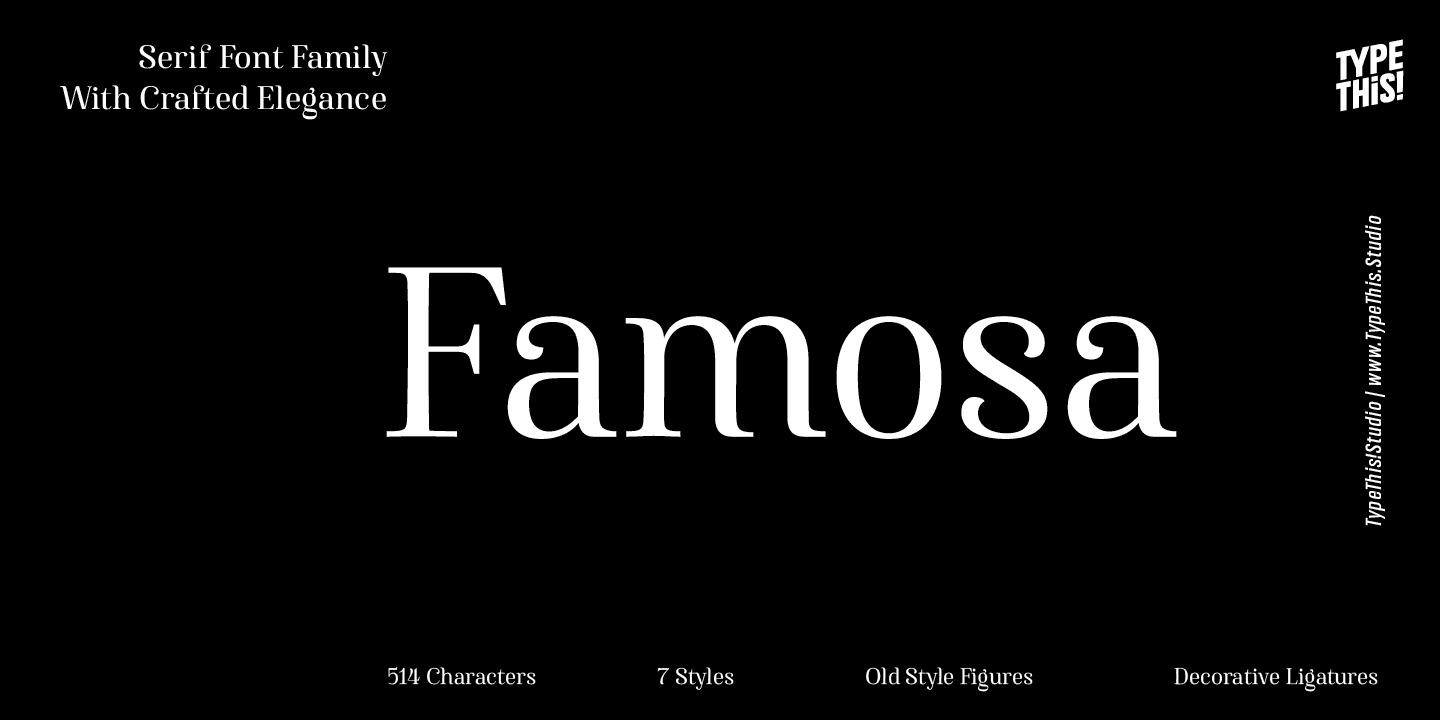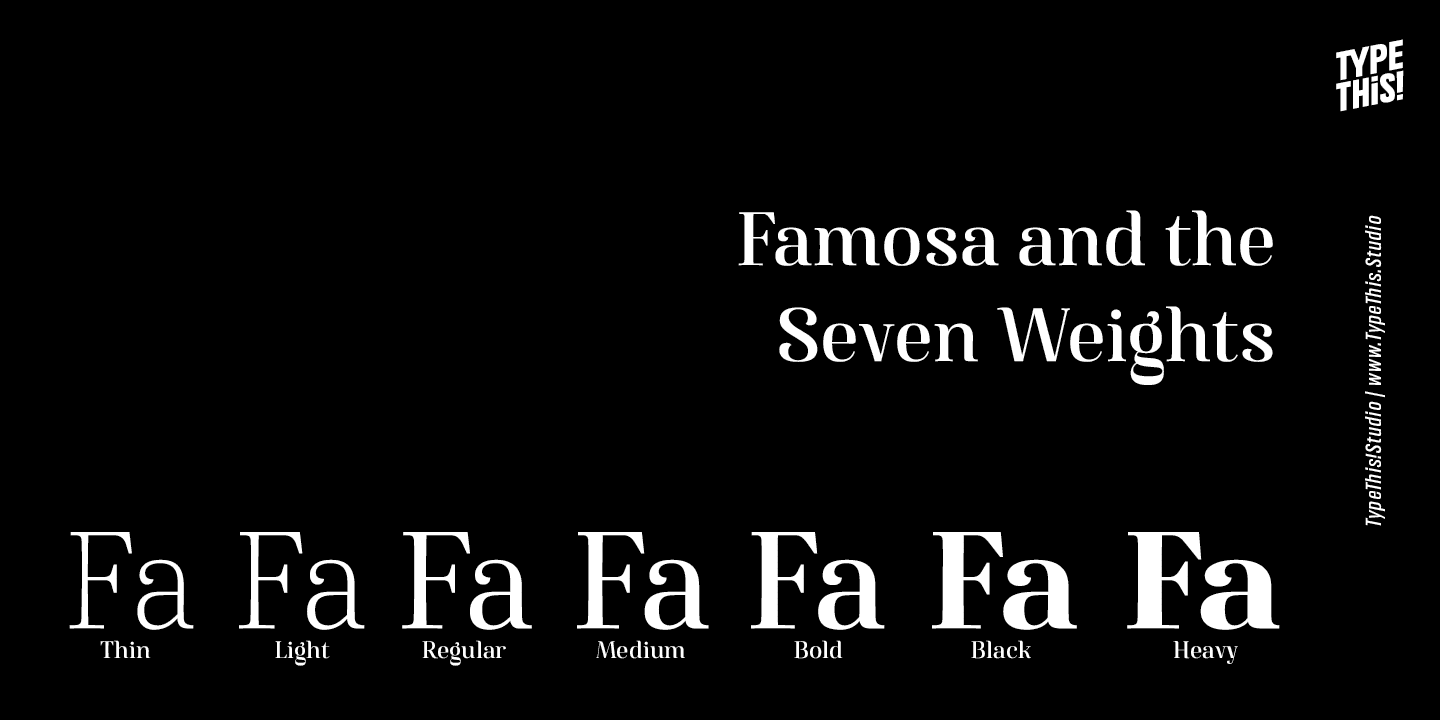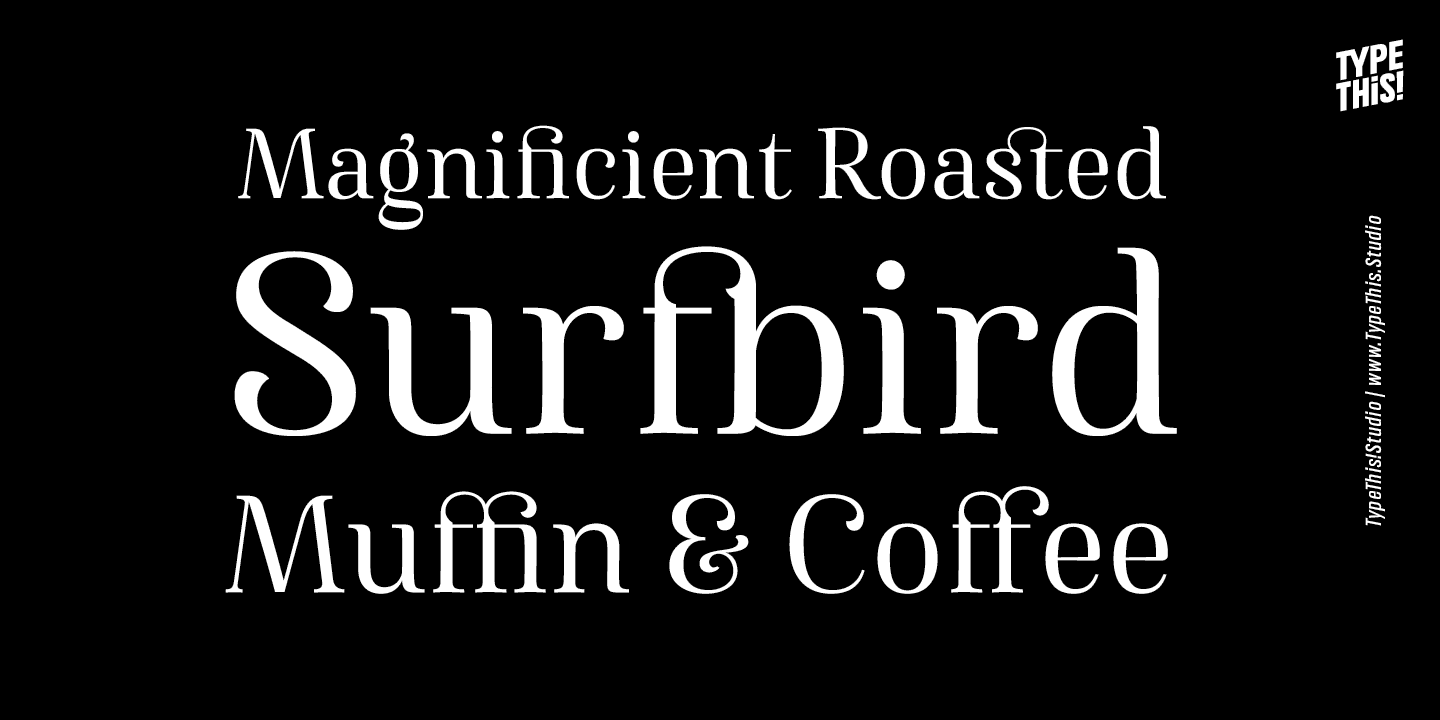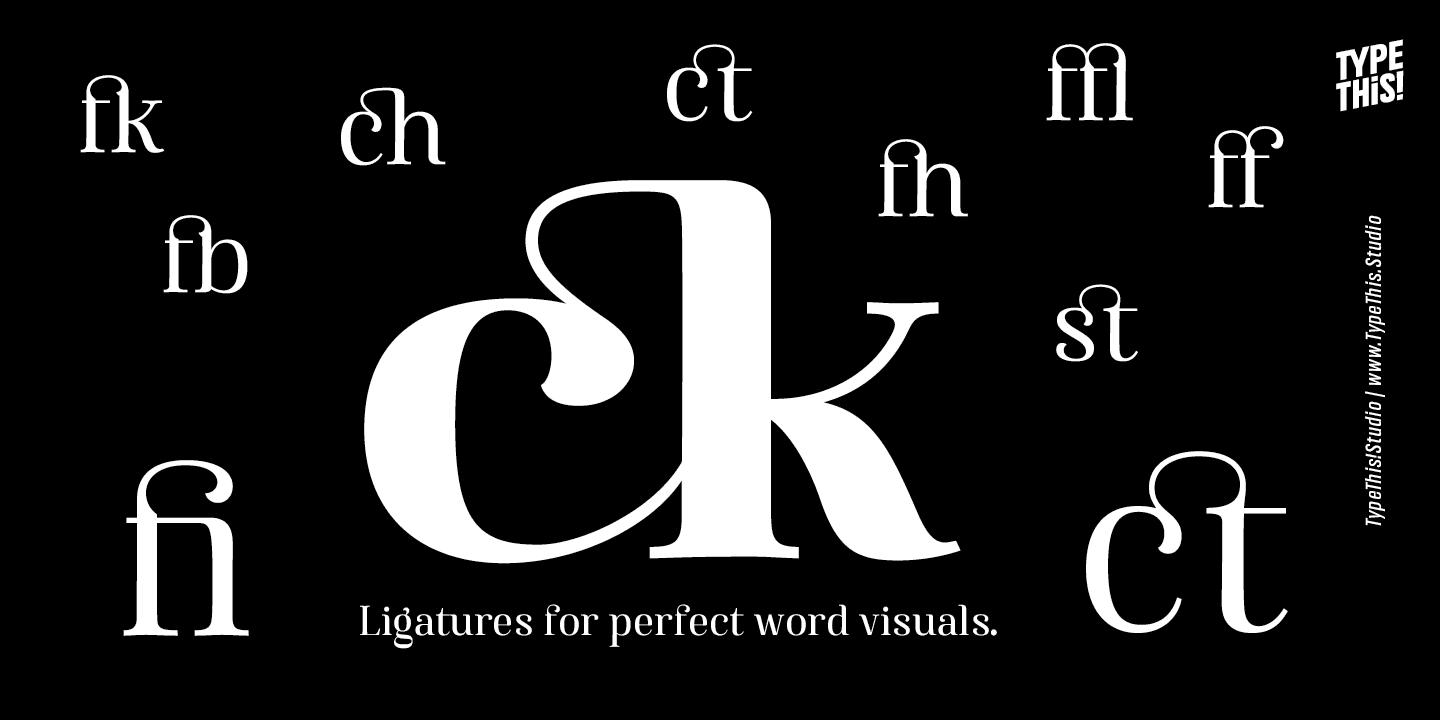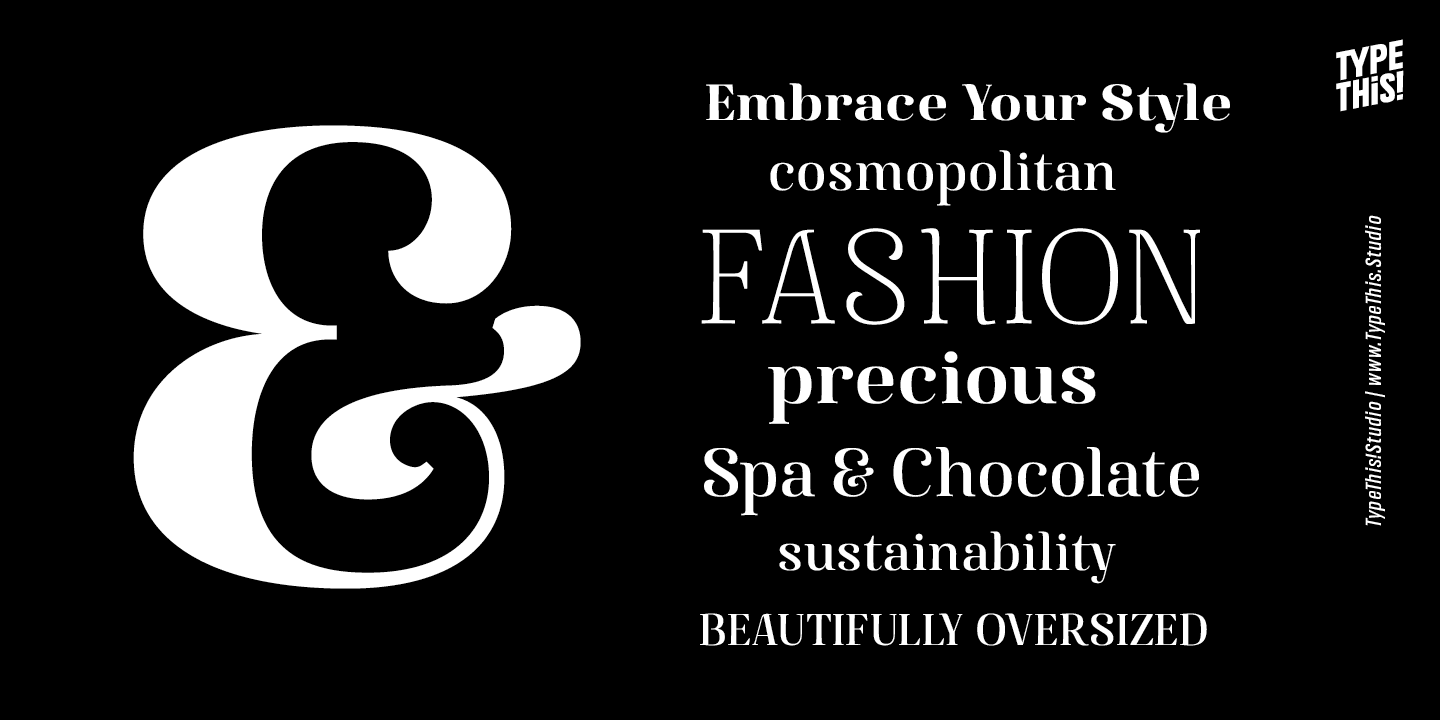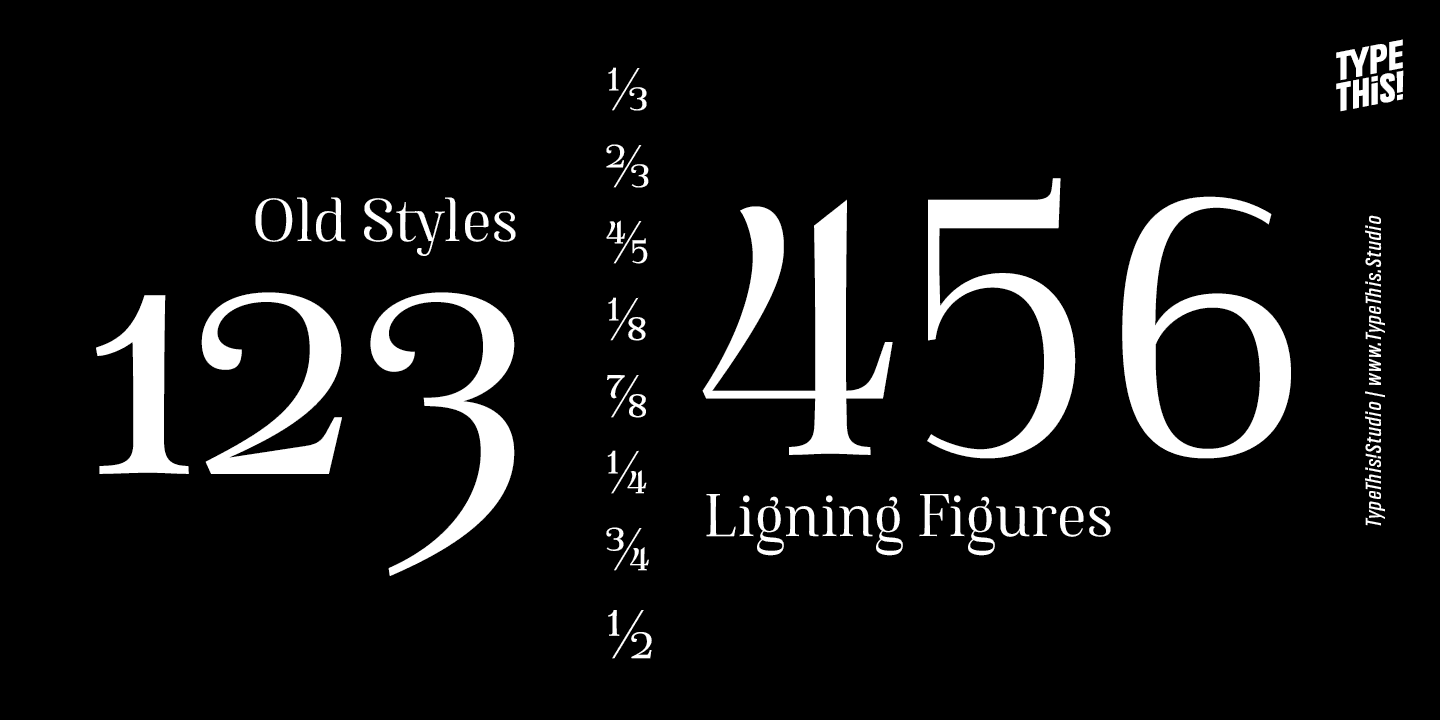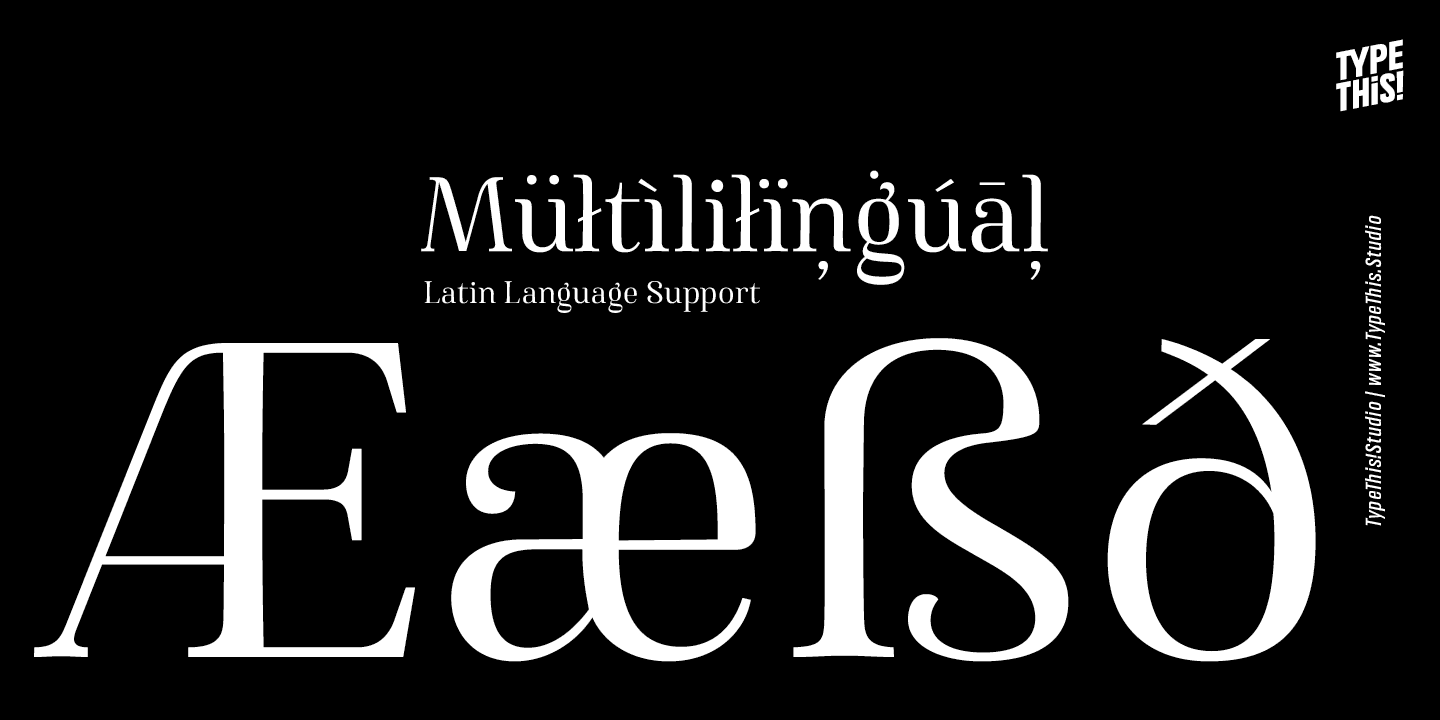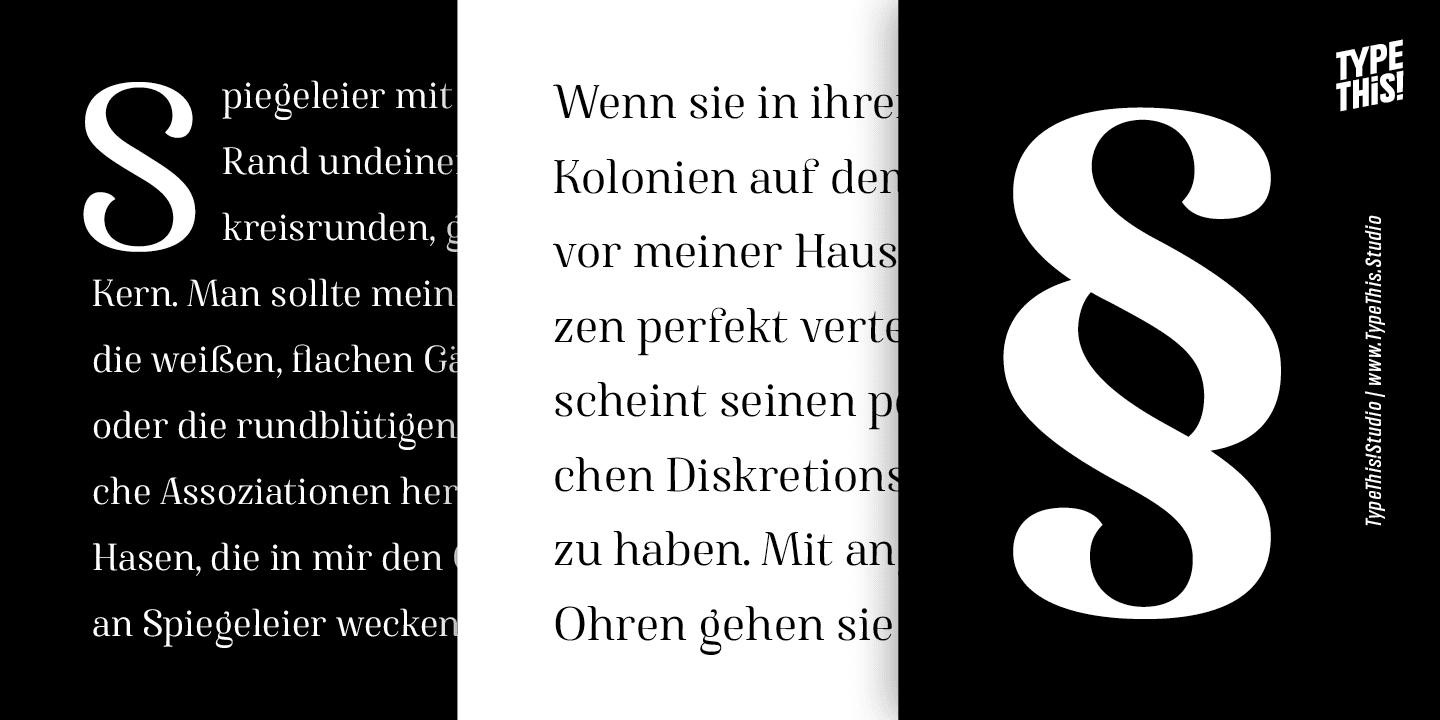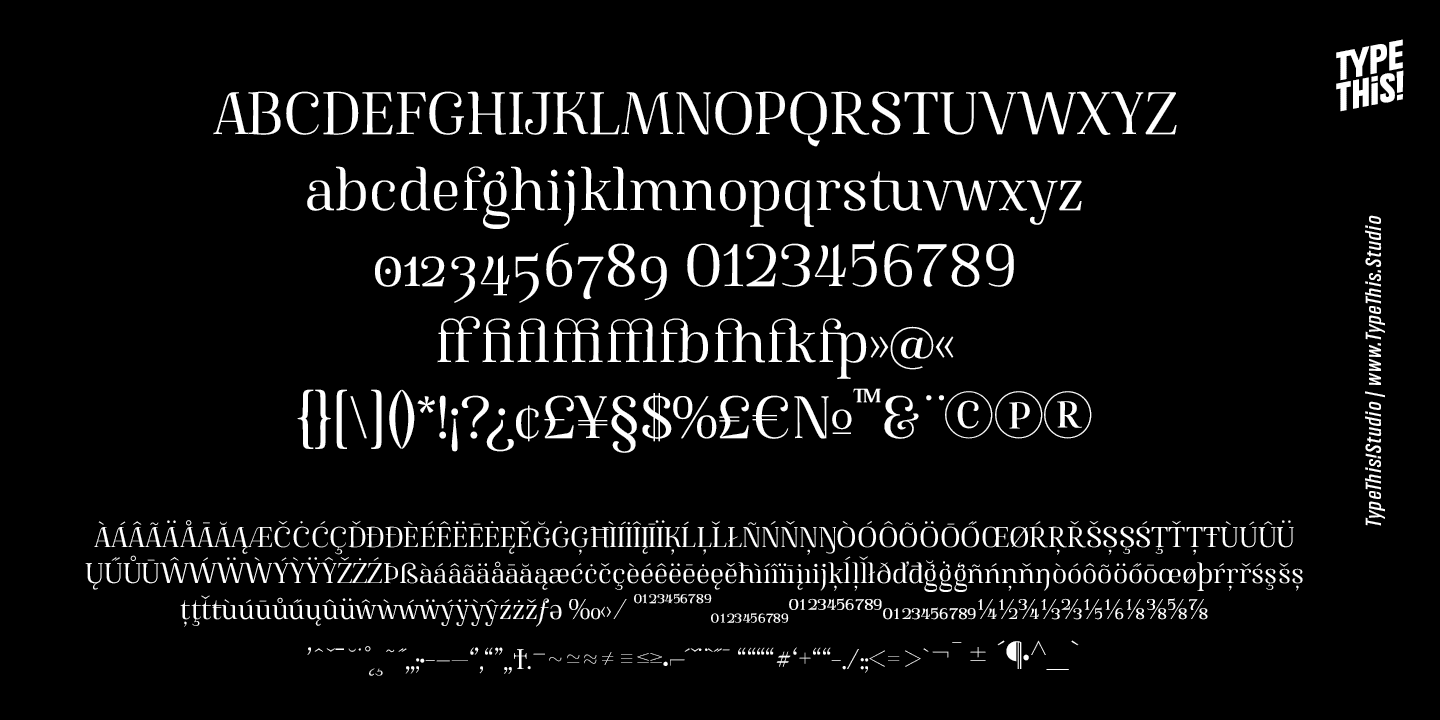
Famosa Family (7 fonts)
From Anita Jürgeleit / TypeThis! Studio
Famosa is designed for all your stylish fashion magazines, clothing brands, and logos as well as your elegant blogger themes. The highlights are for sure the beautiful ligatures, such as sh, ct, fb and more. Famosa provides 7 weights and a full set of upper & lowercase letters, ligatures, old-style & lining figures, currency symbols as well as broad Latin language support. Get inspired by all the info visuals above.
Famosa is known from by Netflix' 'Sweet Magnolias'